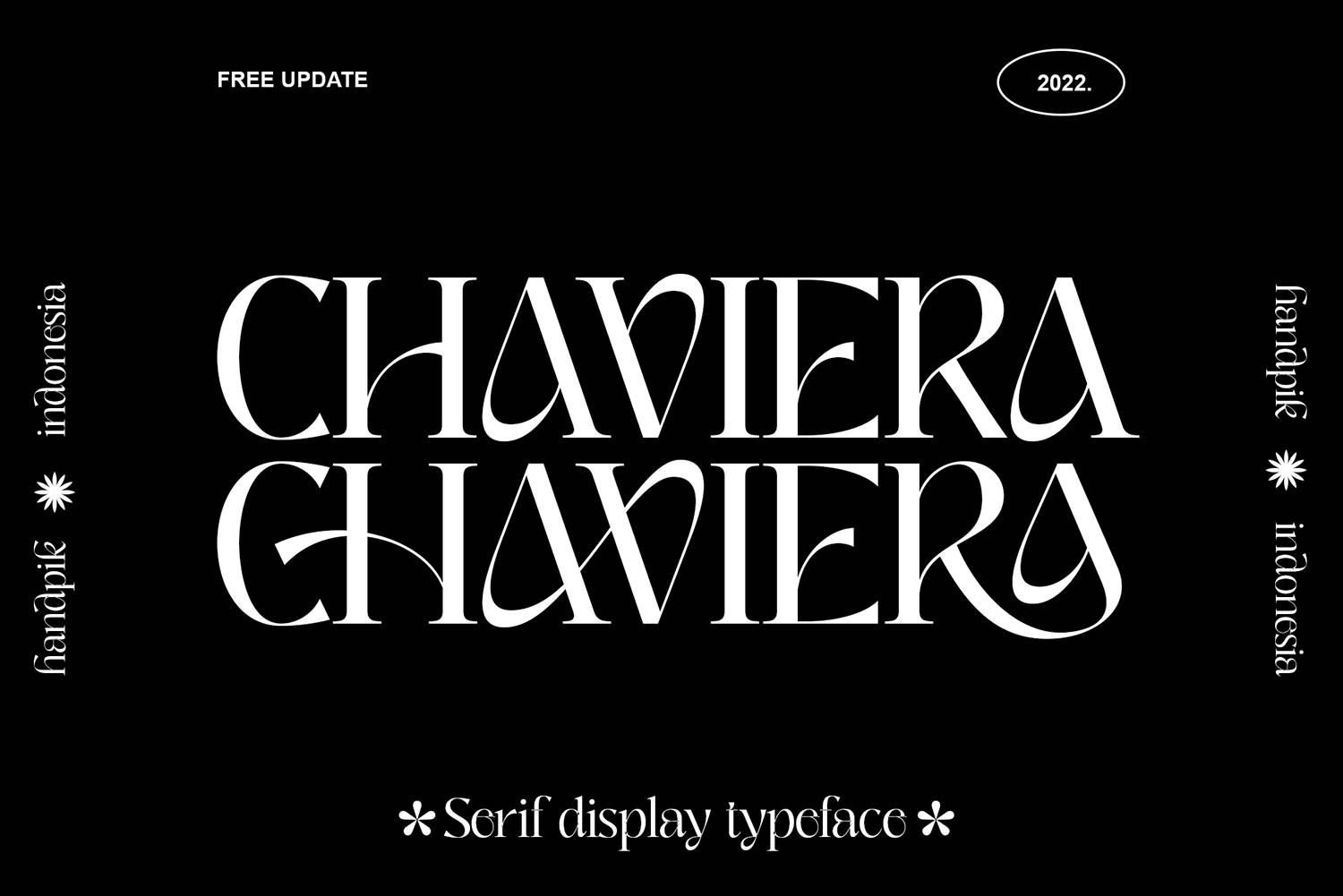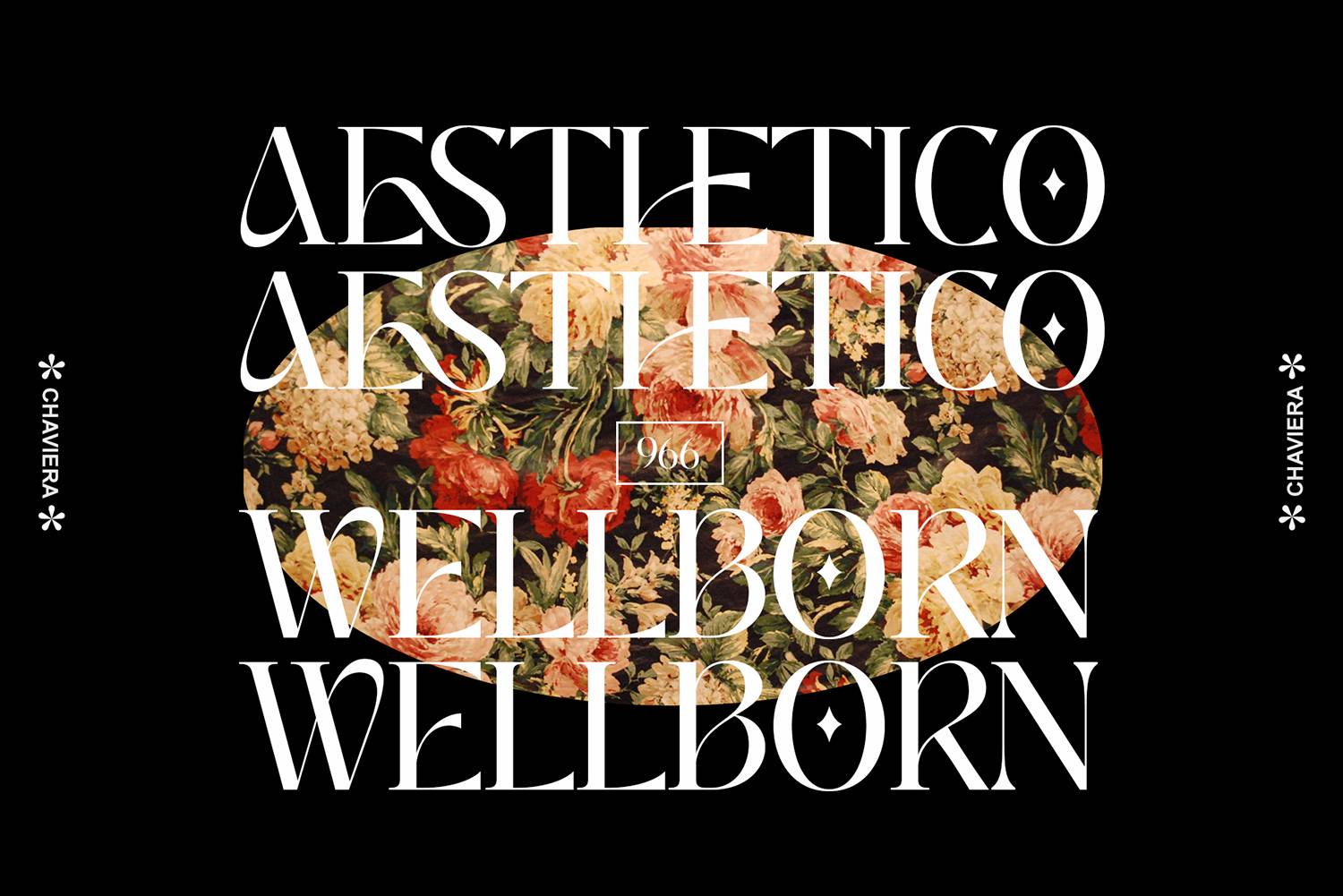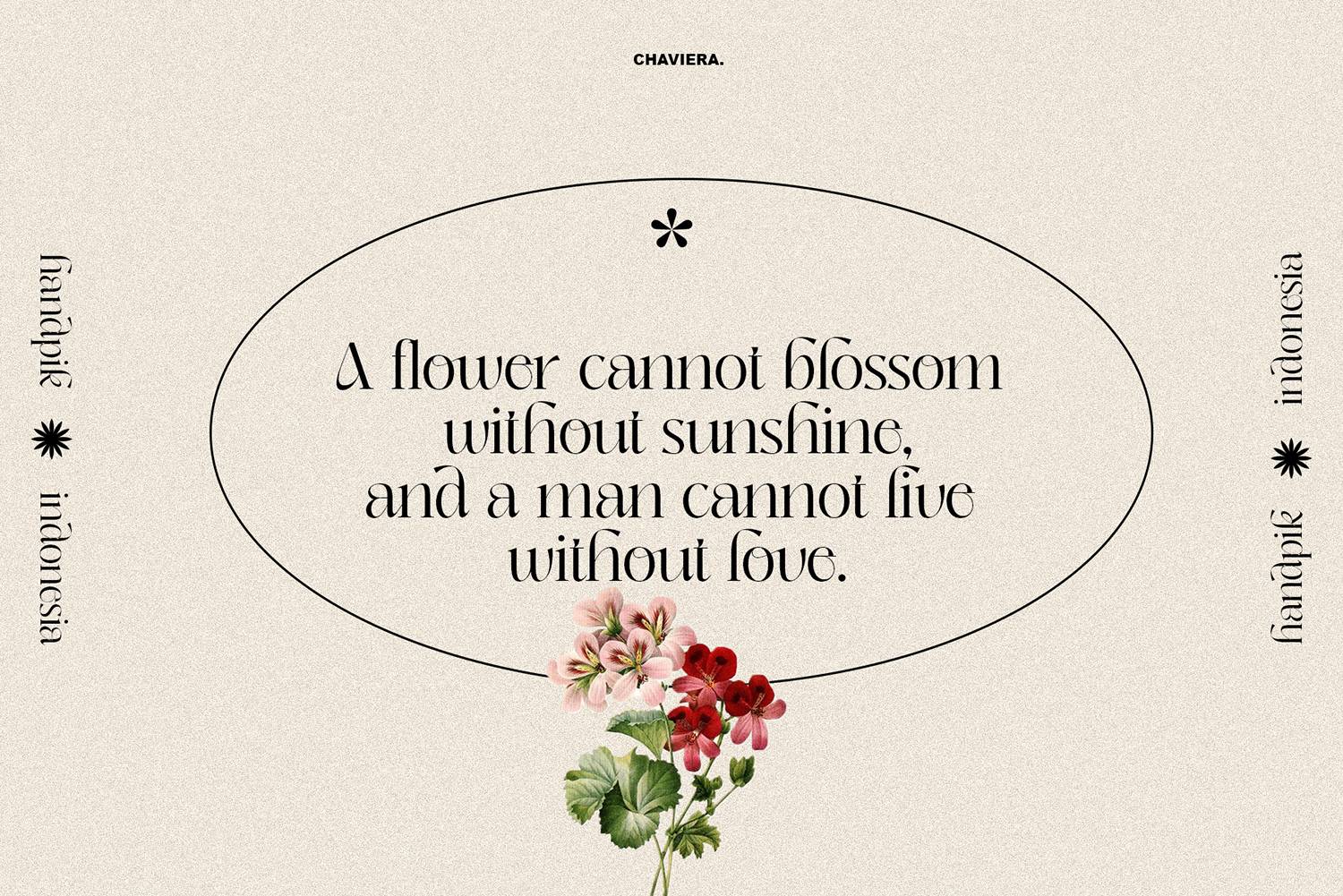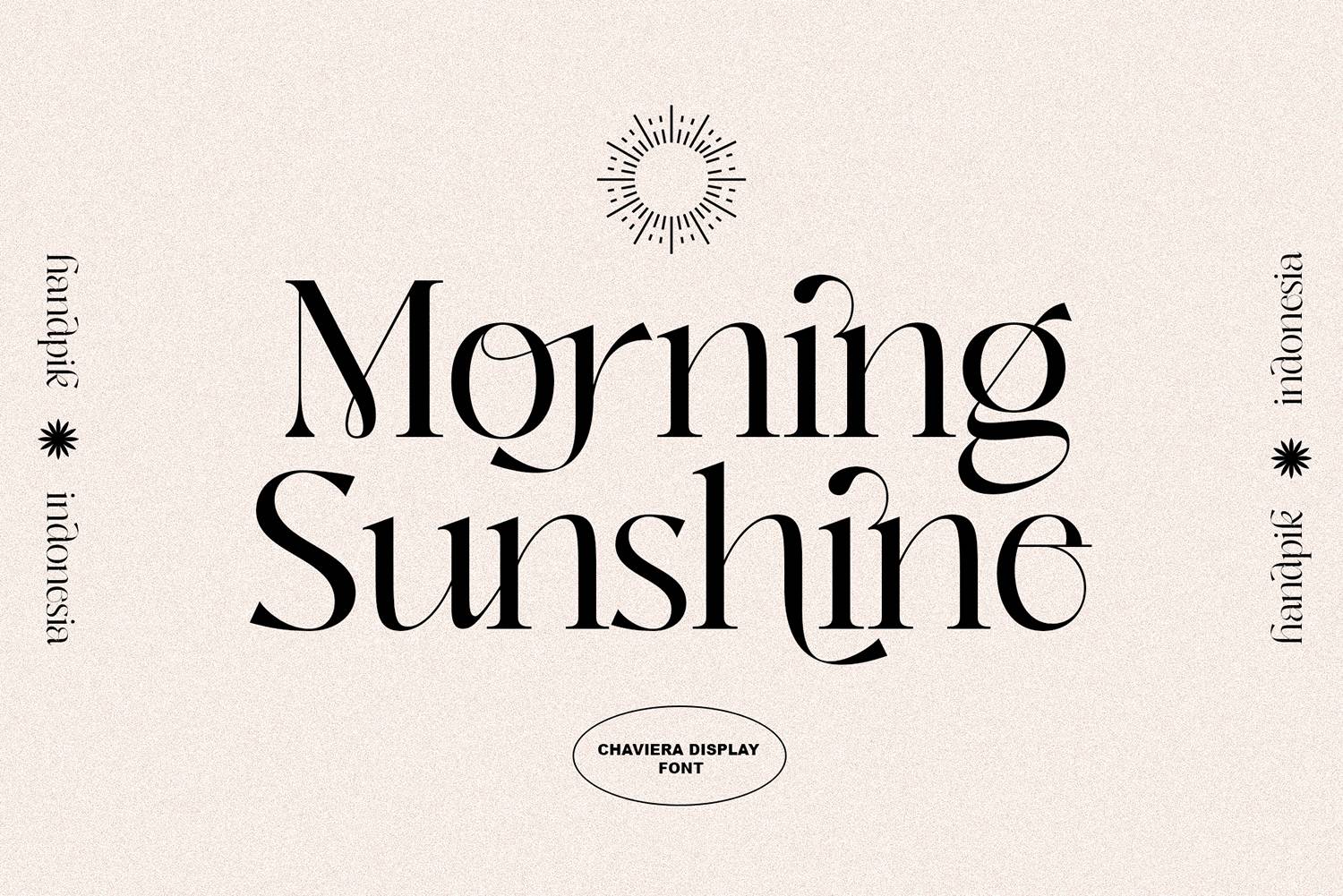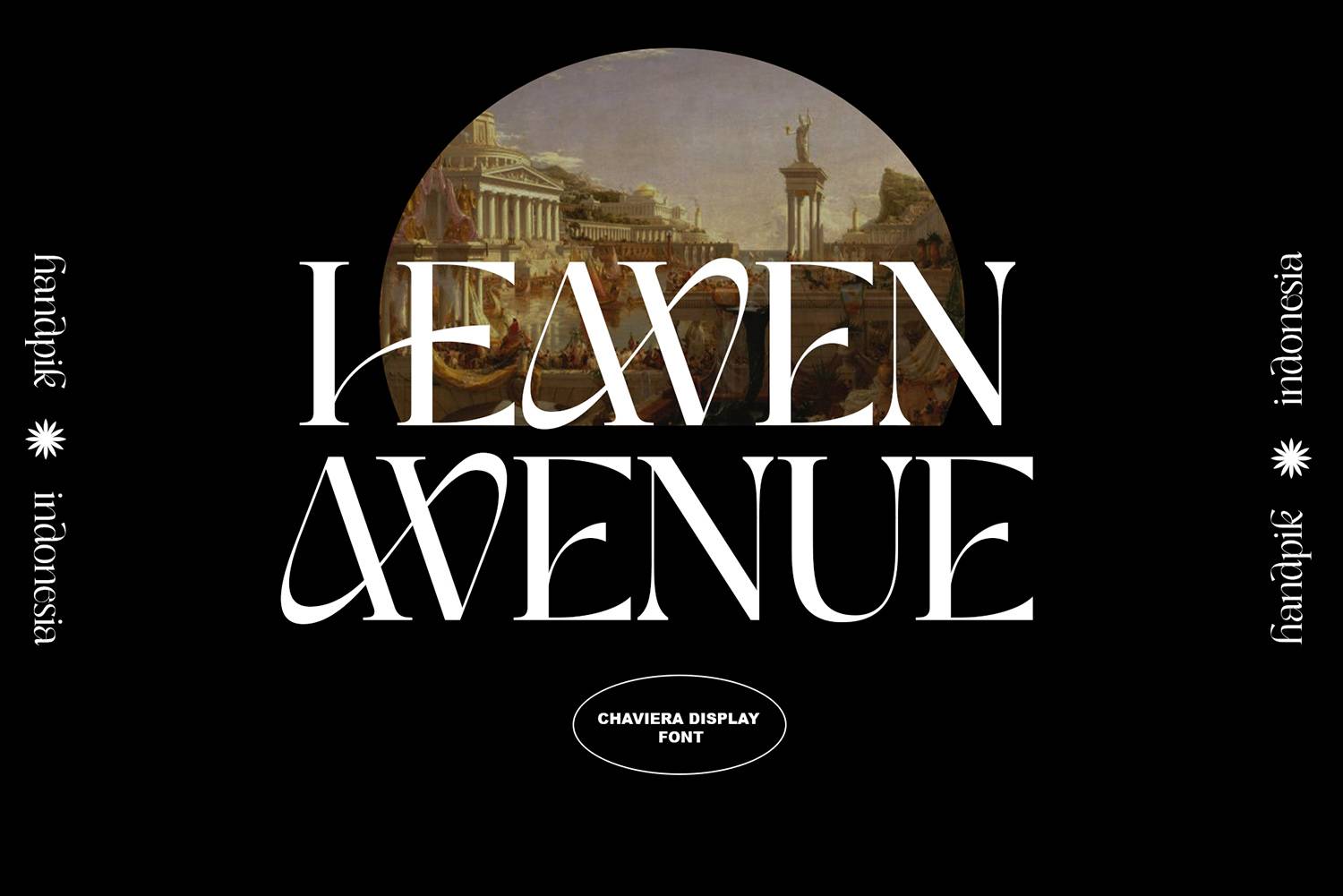
Chaviera is a bold, serif display font with a strong personality characterized by its high contrast strokes and whimsical, curly details on certain letters and numbers. Its condensed width and tall x-height make it eye-catching and perfect for headlines or branding that seeks a playful yet sophisticated vintage vibe. This font works wonderfully in creative packaging, posters, and logo designs where a striking and distinctive style is desired.
Chaviera Font
About Chaviera Font